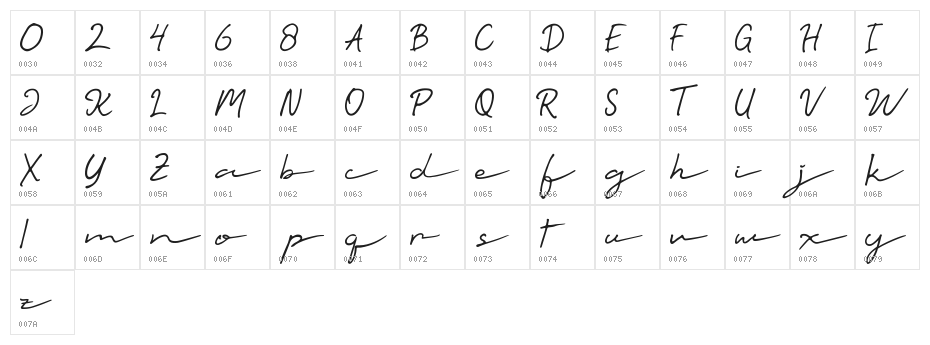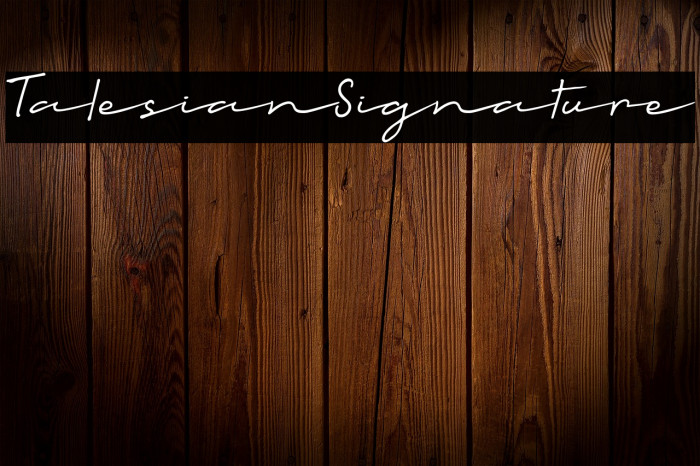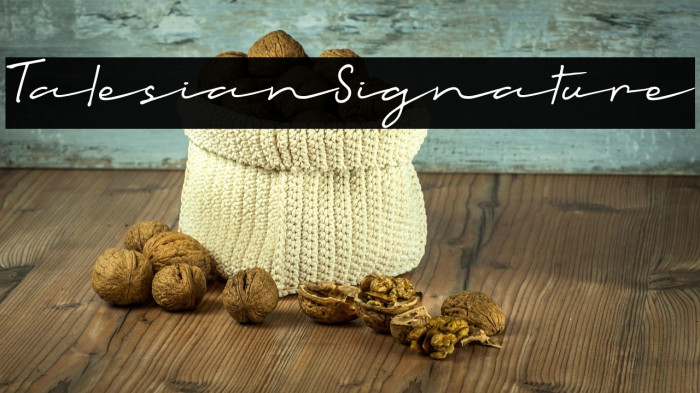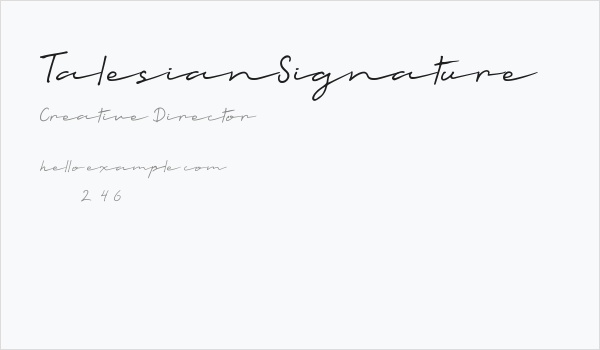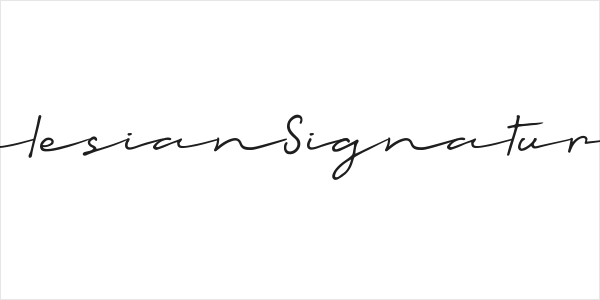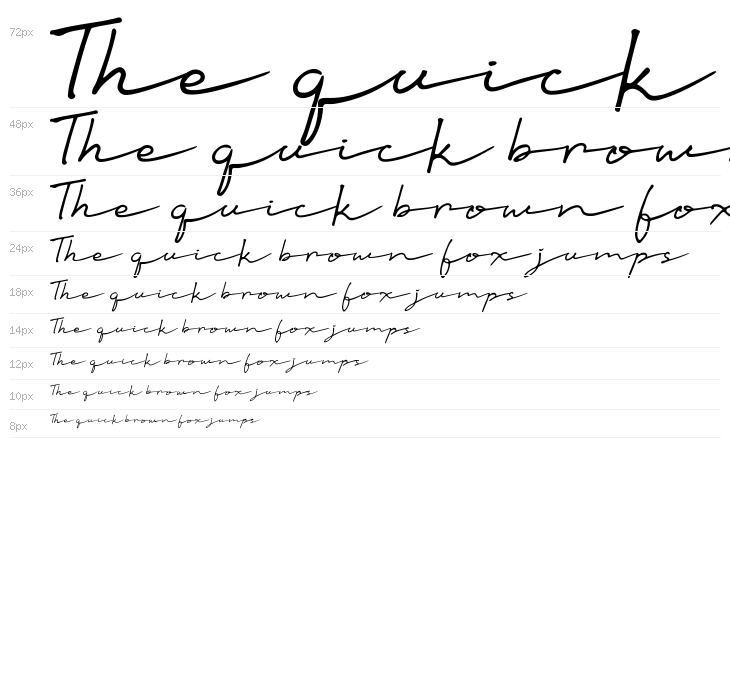
TalesianSignature Font
TalesianSignature Description
This font features a flowing, cursive style that mimics natural handwriting. The uppercase letters are bold and slightly slanted, giving a sense of elegance and fluidity. The lowercase letters are more delicate, maintaining a consistent stroke width that enhances readability. The numbers are bold and slightly larger, ensuring they stand out. Special characters are integrated seamlessly, maintaining the overall aesthetic. This font is perfect for projects that require a personal touch, such as invitations, greeting cards, or branding materials.
| Overall Style | Elegant, Personal |
| Use Case | Logos, Invitations, Artistic Projects |
| Proposed Projects | Ideal for wedding invitations, personal branding, greeting cards, and artistic projects. |